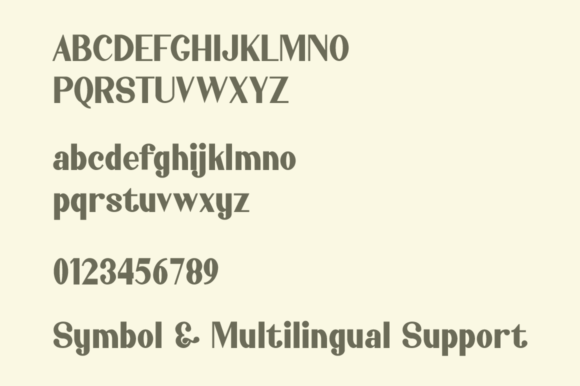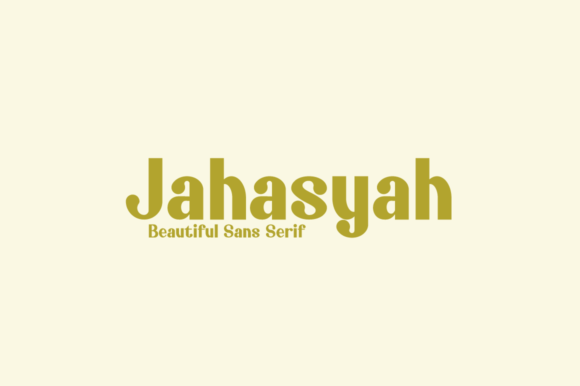
The Perfect Font to Elevate Your Creativity
Have you ever stared at a blank canvas, waiting for inspiration to strike? The cursor blinks, and your mind goes blank. You know that moment when everything seems to be holding you back from unleashing your true creative potential? Well, we’ve got the solution for you. Introducing Jahasyah Font, a modern and sweet display font designed to bring your creative ideas to the forefront.
This beautifully crafted font is not just another addition to your design library; it’s a game-changer. With Jahasyah Font, you’ll be able to express yourself in a way that’s both unique and captivating. Whether you’re a seasoned designer or just starting out, this font is a valuable addition to your toolkit. Its versatility and charm make it the perfect choice for designers looking to elevate their work and stand out from the crowd.
Jahasyah Font Key Features
- Font Family: Jahasyah Font is a unique and modern sans-serif font family designed for various applications.
- Character Count: The font family includes a vast range of characters, including uppercase and lowercase letters, numbers, punctuation marks, and special characters.
- Unique Characteristics: Jahasyah Font features a unique blend of modern and minimalist design elements, making it perfect for creating a sleek and professional look in various design projects.
Jahasyah Font Review
I recently had the chance to work with the Jahasyah Font, and I must say it’s an interesting combination of modern and vintage elements. ✨ The unique blend of serif and sans-serif styles gives it a distinctive look that’s perfect for projects that need a bit of edge. The font is also highly legible, making it suitable for both body text and headings.
Here are some of the things that I like about the Jahasyah Font:
- Highly legible and easy to read
- Unique blend of modern and vintage styles
- Perfect for projects that need a bit of edge
- Works well for both body text and headings
However, I do have a few concerns about the font:
- It may be too bold or overpowering for some designs
- The font is not ideal for projects that require a lot of subtlety
- The font may not be suitable for very small or large text sizes
- ⚠️ Some characters may not be as well-designed as others
Overall, the Jahasyah Font is a great choice for projects that need a bit of attitude and edge. While it may have some limitations, it’s a great option for designers who want to add a bit of personality to their work.
The Jahasyah font is ideal for creative and artistic designs, such as:
- Typography-based designs
- Artistic posters and prints
Alternatives to Jahasyah Font
Playfair Display is a luxurious, elegant serif font perfect for creating high-end designs, such as luxury branding, invitations, and magazine headlines. It features intricate details and ornate flourishes, making it an excellent choice for adding sophistication to your designs.
Comparison to Jahasyah Font: While Jahasyah Font has a unique, handwritten feel, Playfair Display is more refined and elegant. Playfair Display is ideal for designs where you want to convey luxury and sophistication, whereas Jahasyah Font is better suited for more casual, creative projects.
Great Vibes is a modern, elegant script font perfect for creating eye-catching headings, quotes, and titles. It features a flowing, handwritten feel with a touch of sophistication, making it an excellent choice for designs where you want to add a touch of elegance.